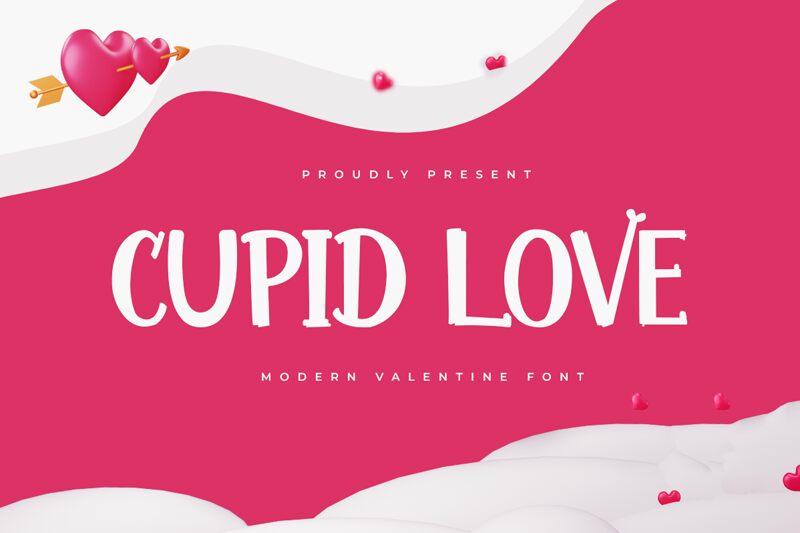
Cupid Love font by Kong Font is a free Valentine holiday typeface with a bold, hand-painted feel that’s full of warmth and character. The tall, slightly irregular letters and inky, textured strokes give it the charm of a love note brushed onto paper, making every word feel personal and a little bit dramatic.
Using Cupid Love, your Valentine cards, wedding favors, gift tags, social media posts, party invitations, and romantic posters instantly pick up a playful, heartfelt mood. This free font shines at larger sizes where its rough, brushy edges can really show, and it pairs nicely with a clean sans serif for body text to keep things readable and balanced.